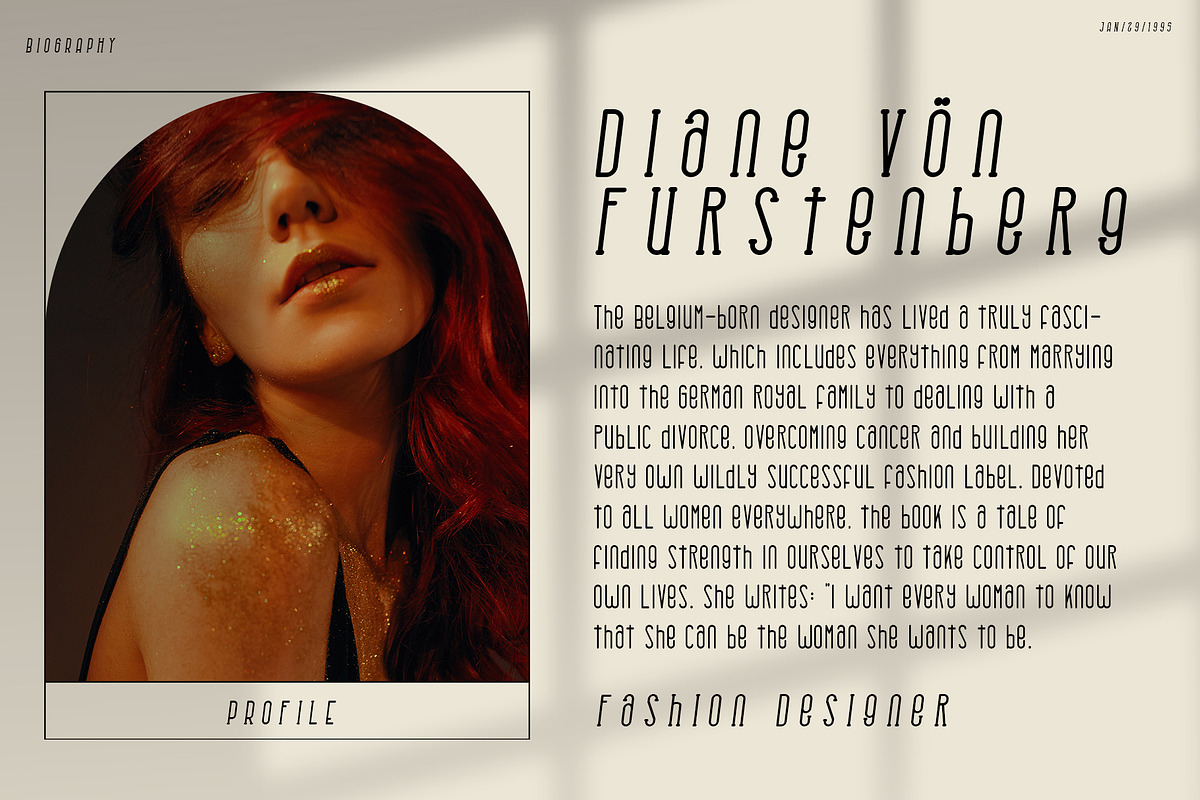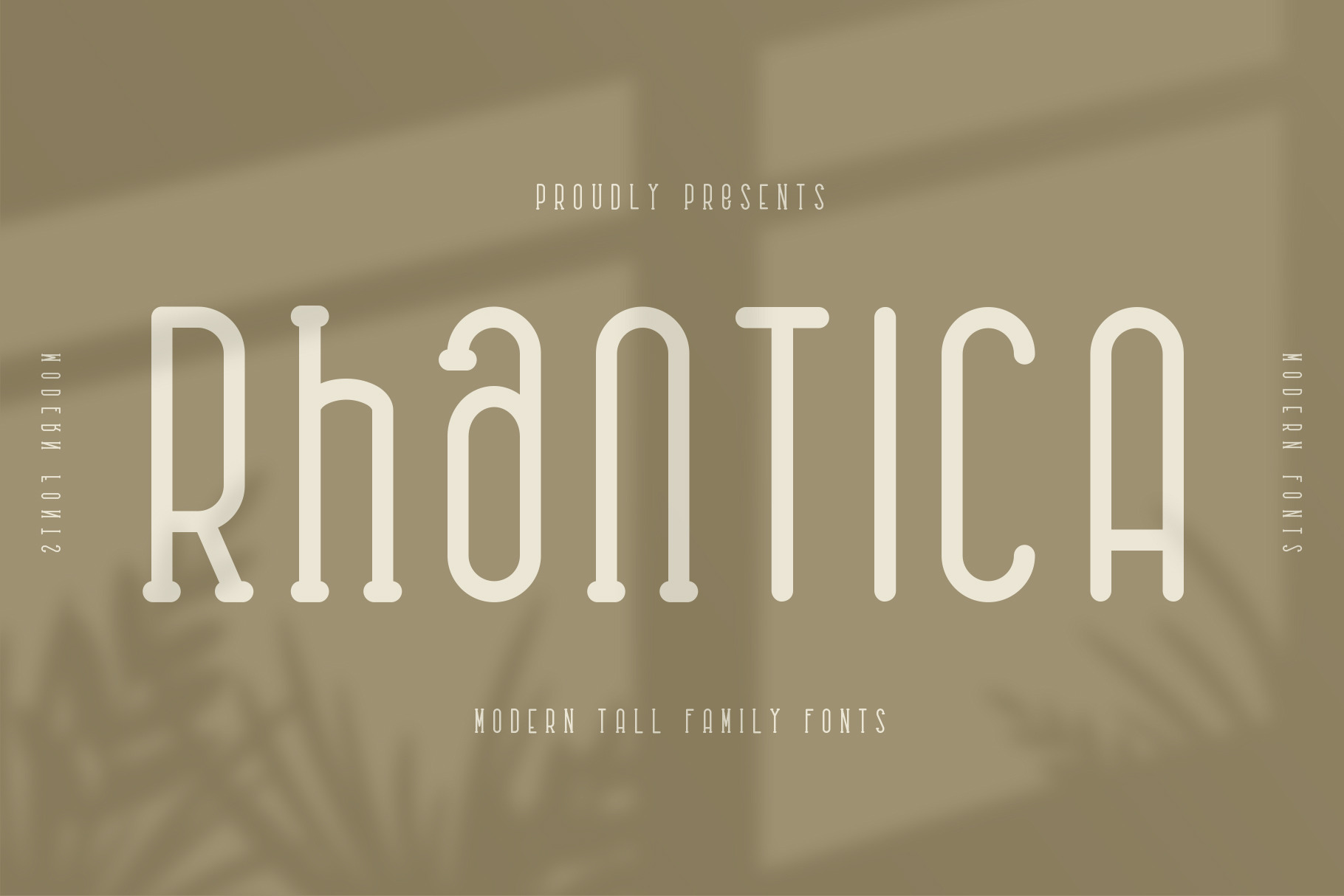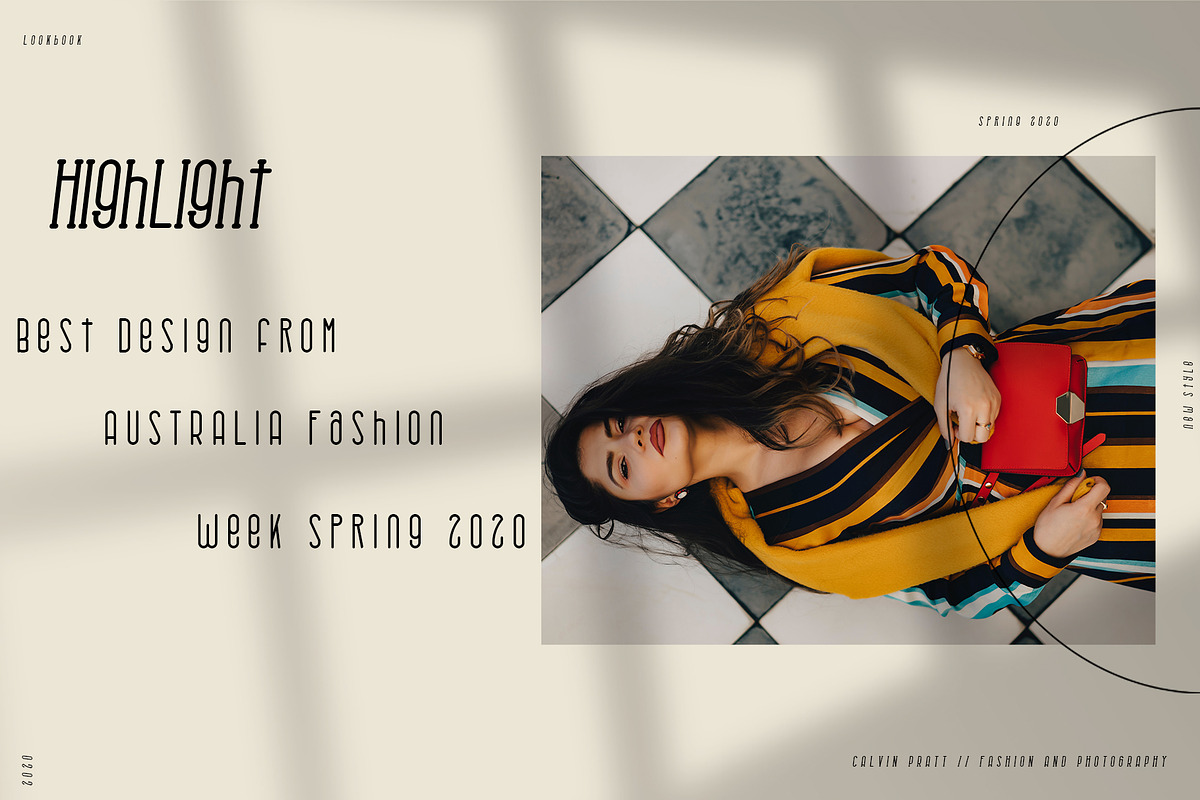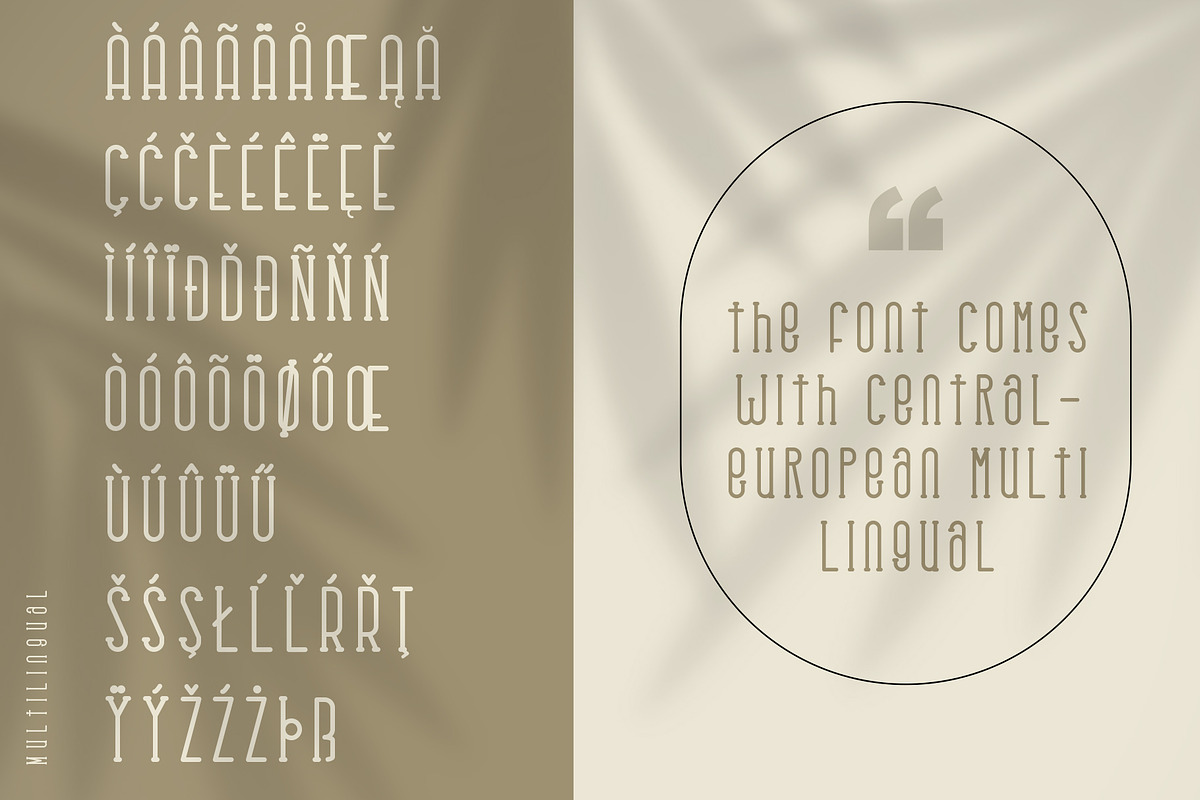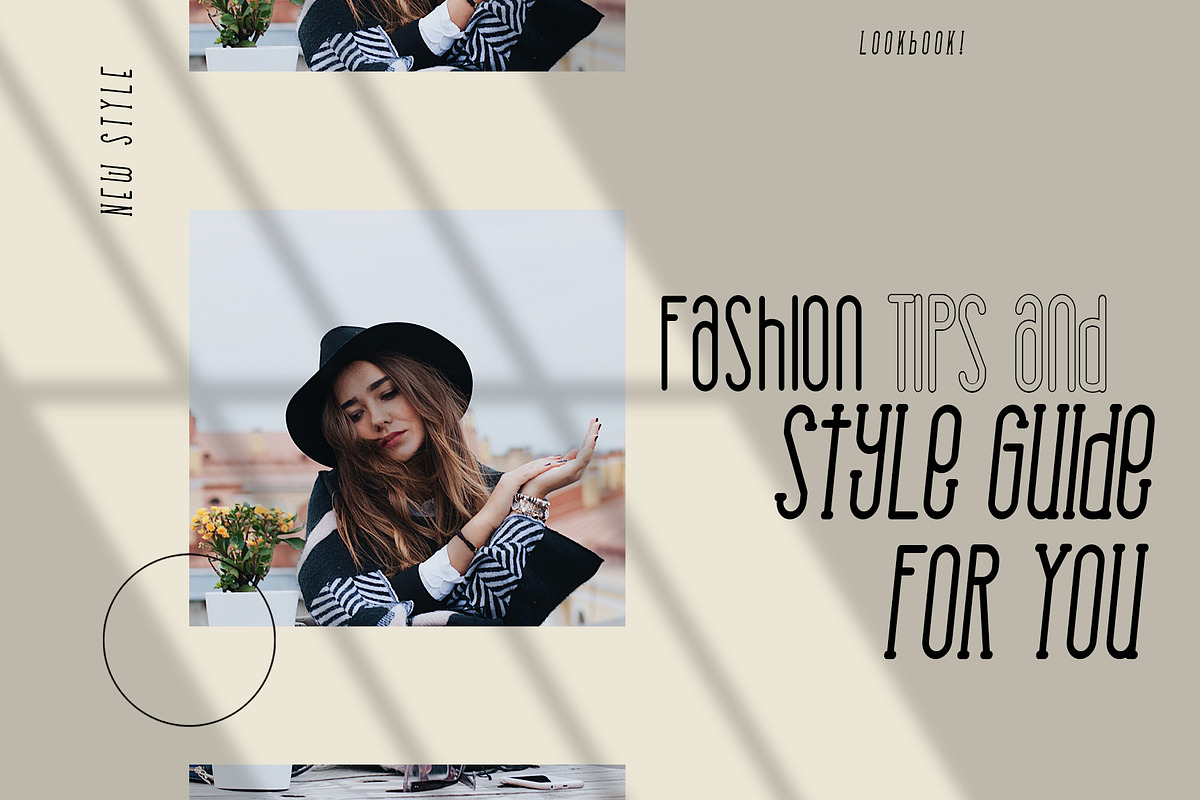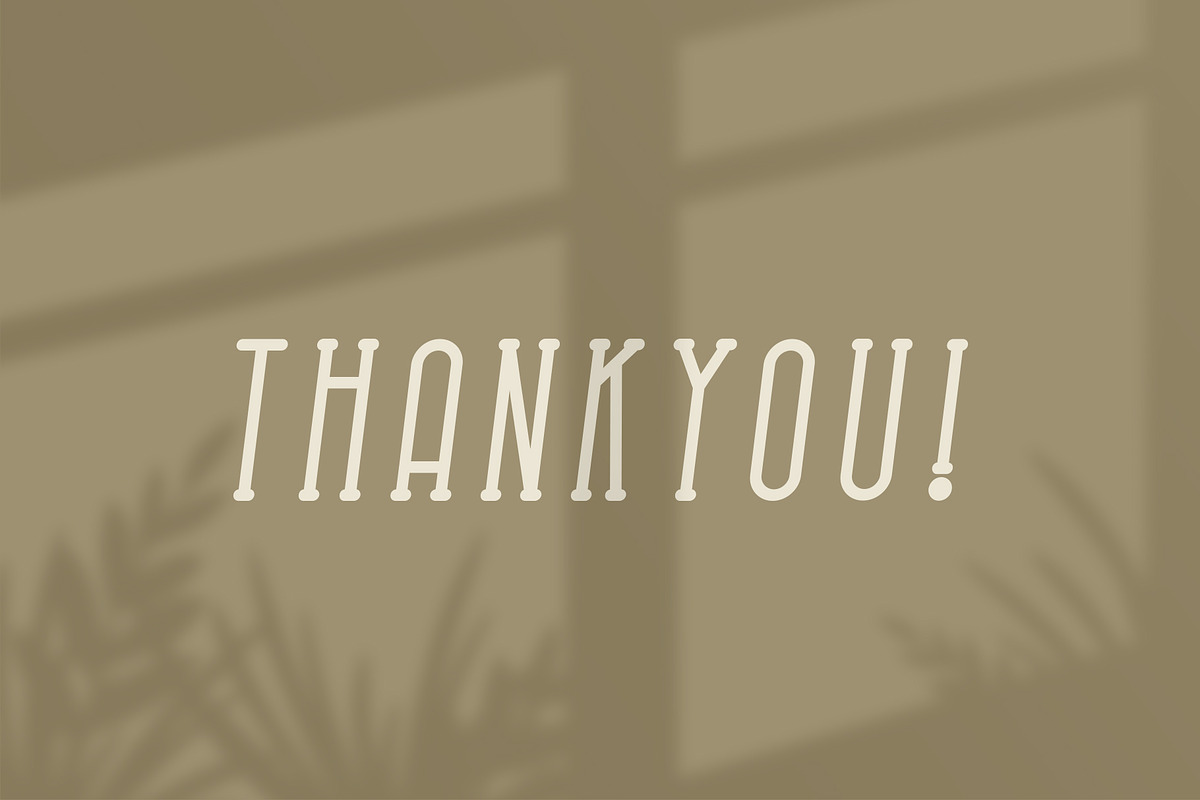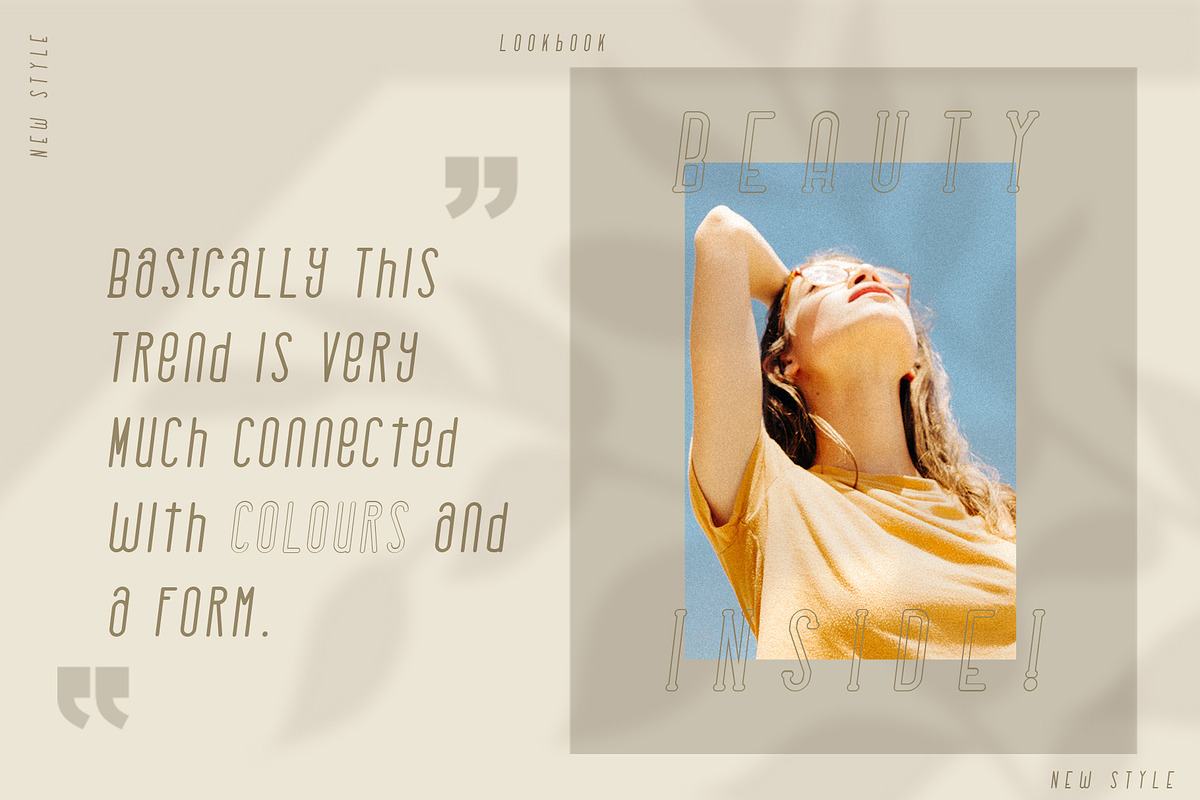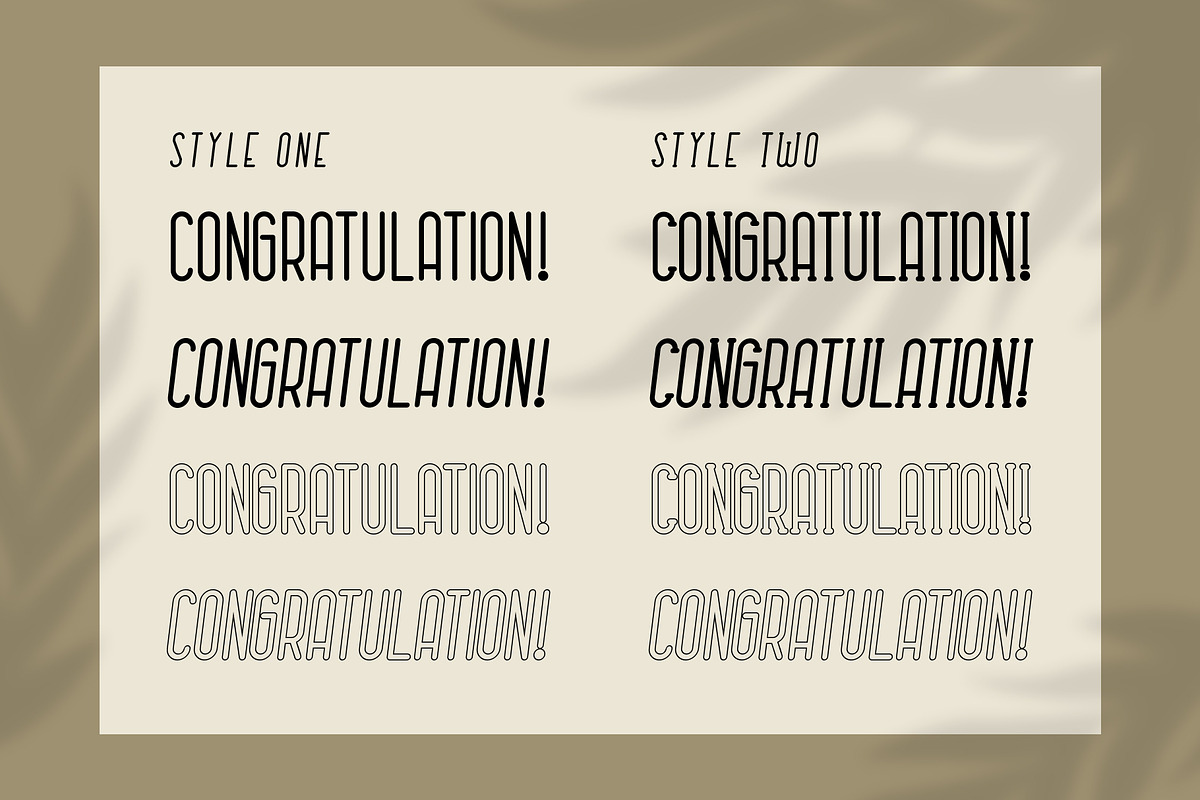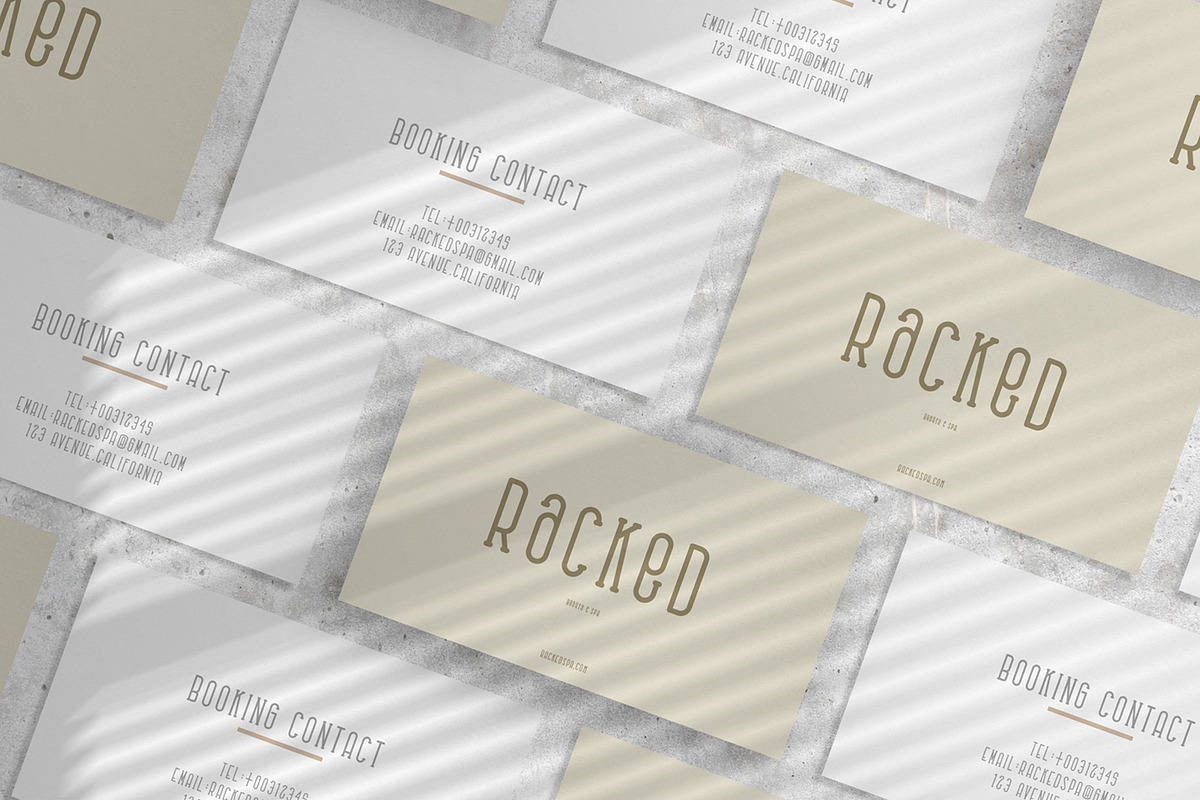
Rhantica Family Fonts
This is it. the new family fonts "Rhantica". this font build with perfect contour and comes with 2 style Regular and Serif. also have a outline font too.
What's Character Inside The fonts ?
- Rhantica Regular Uppercase & Lowecase
- Rhantica Numerals And Punctuations
- Rhantica Multilingual Central European
- Rhantica Serif Uppercase & Lowercase
- Rhantica Numerals And Punctuations
- Rhantica Multilingual Central European